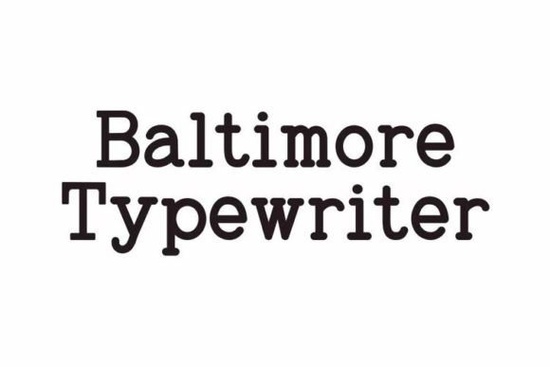
If you've ever wanted to give your designs that authentic, worn-in typewriter feel, the Baltimore Typewriter Pack Font is worth a closer look. This vintage-inspired font collection captures the look and texture of real typewritten characters the uneven ink, the slight misalignments, and the overall retro personality that makes typewriter fonts so appealing. Whether you're designing wedding invitations, crafting quotes for wall art, or building a brand with a classic aesthetic, this pack delivers that old-school charm without any fuss.
What Comes Inside the Baltimore Typewriter Pack?
This isn't just one typewriter font it's a full pack designed to give you versatility. Inside, you'll find multiple styles and weights that work together, so you can mix and match across your projects. The characters have that imperfect, slightly distressed texture you'd expect from a real typewriter, which means your designs look handmade and genuine rather than overly polished.
The pack works well for:
- Poster designs and wall art
- Wedding and event invitations
- Book covers and editorial layouts
- Social media graphics and quote posts
- Branding projects with a vintage or artisan feel
- Print-on-demand products like mugs, t-shirts, and tote bags
Who Is This Font Pack Best For?
If you're a graphic designer working on retro-themed branding, a crafter selling handmade goods on Etsy, or a print-on-demand seller looking for fonts that stand out in a crowded marketplace, this pack fits right into your toolkit. Small business owners who want a warm, approachable look for their logos and packaging will also find it useful.
Typewriter fonts have a unique ability to feel both personal and professional. They suggest authenticity like someone sat down and typed something with care. That emotional quality makes them especially effective for brands in the food, lifestyle, craft, and publishing spaces.
How Does It Compare to Other Font Styles?
Typewriter fonts occupy a specific niche. They're not sleek and modern like sans-serifs, and they're not ornate like decorative scripts. But that's exactly their strength. If your project calls for something with warmth and character something that feels real a typewriter font does the job better than most alternatives.
Tips for Getting the Most Out of Typewriter Fonts
- Adjust your letter spacing. Real typewriter text often had uneven spacing. A little extra tracking can improve readability while keeping that authentic look.
- Use it at the right size. Typewriter fonts can look muddy at very small sizes. Test your design at the actual print dimensions before finalizing.
- Pair with simple backgrounds. A typewriter font on a clean, textured paper background looks fantastic. Avoid busy backgrounds that compete with the letterforms.
- Don't overuse it. One or two typewriter-style elements in a design is charming. Too many can make the layout feel cluttered and hard to read.
- Test on mockups first. If you're selling print-on-demand products, preview how the font looks on actual product mockups mugs, shirts, posters before listing.
Where Can You Use It for Commercial Projects?
Thanks to its versatile style, this font pack works across a wide range of commercial applications. Here are a few ideas:
- Etsy shop listings Use it for product photos, listing graphics, and branded packaging inserts.
- Blog graphics and Pinterest pins Typewriter fonts grab attention in a feed full of modern, clean typography.
- Restaurant menus and cafe branding The vintage feel pairs naturally with artisan food and drink businesses.
- Self-published book covers Especially for memoirs, poetry collections, and historical fiction.